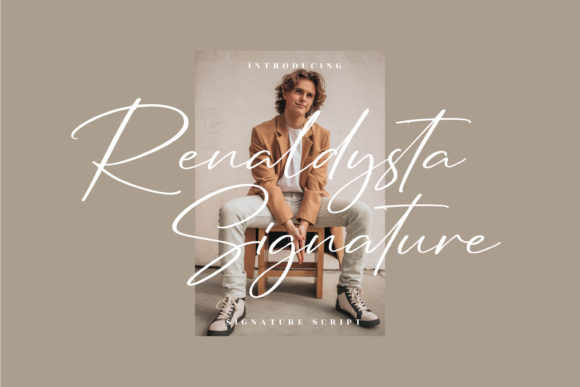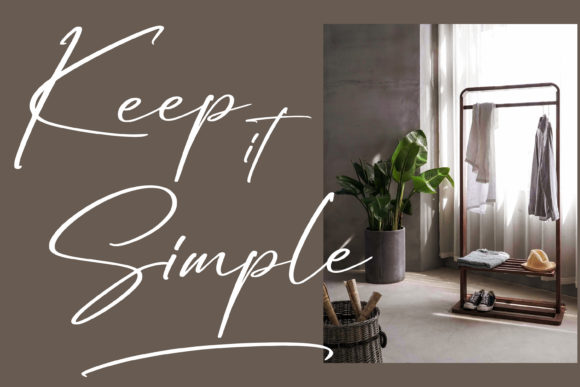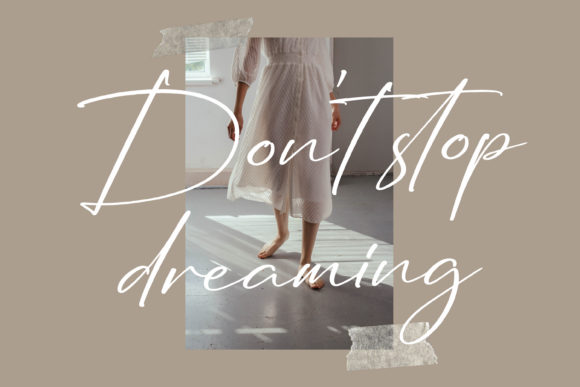
Renaldysta Signature Font
About Renaldysta Signature Font
Renaldysta Signature is a delicate, elegant and flowing handwritten font. It has beautiful and well balanced characters and as a result, it matches a wide pool of designs. This font is PUA encoded which means you can access all of the glyphs and swashes with ease!